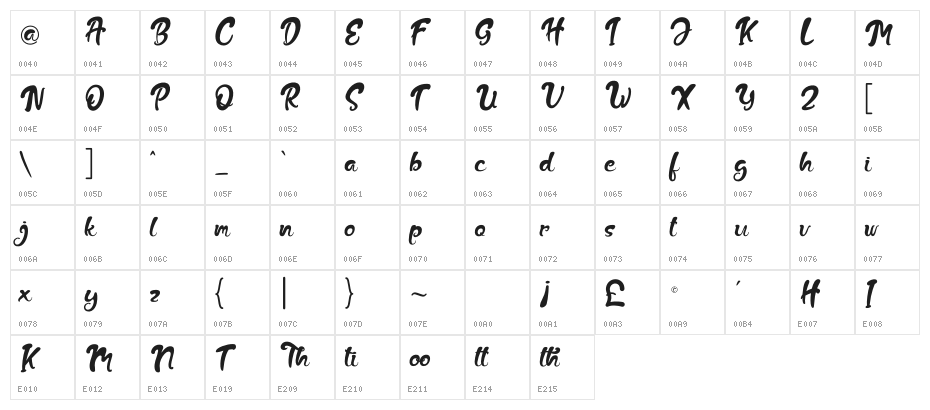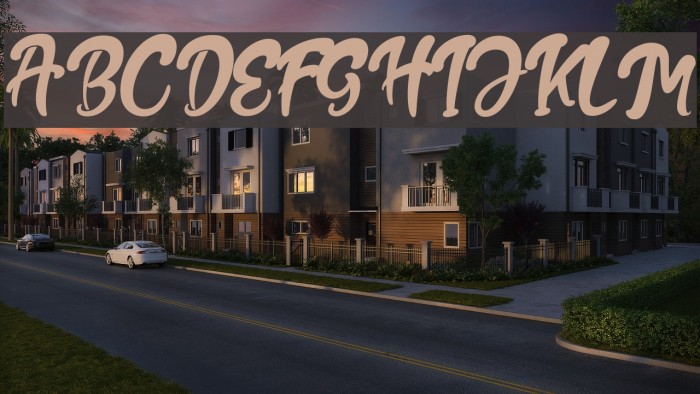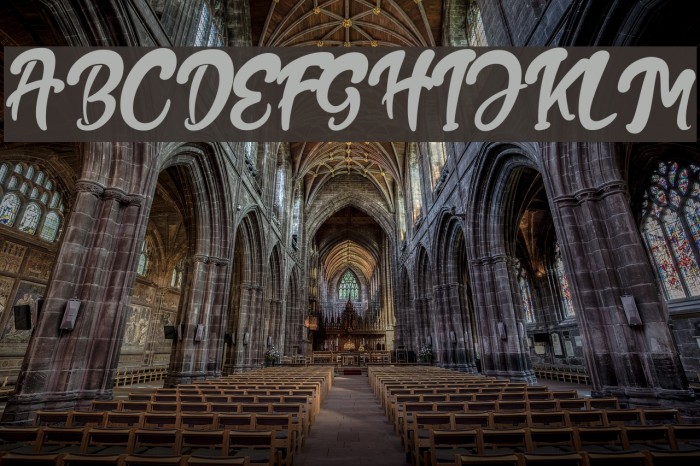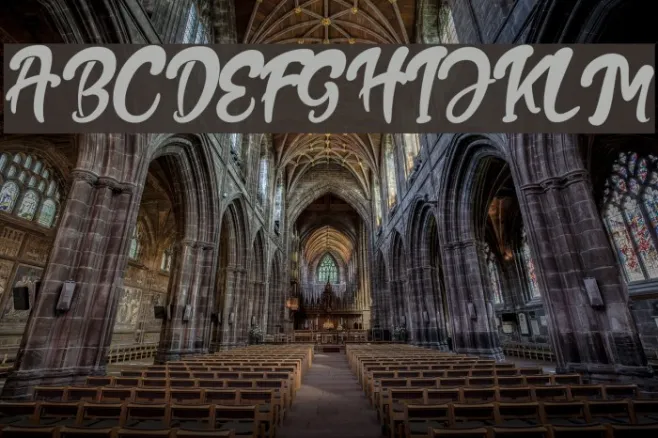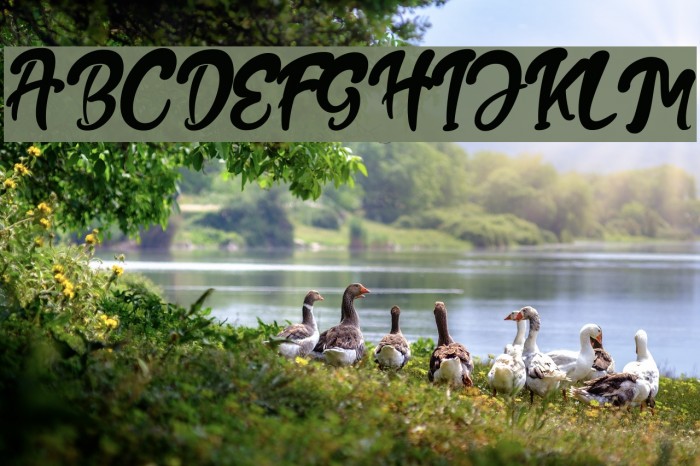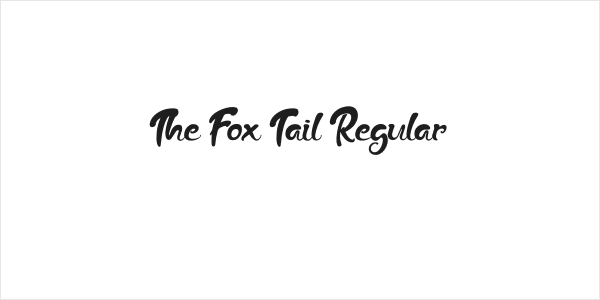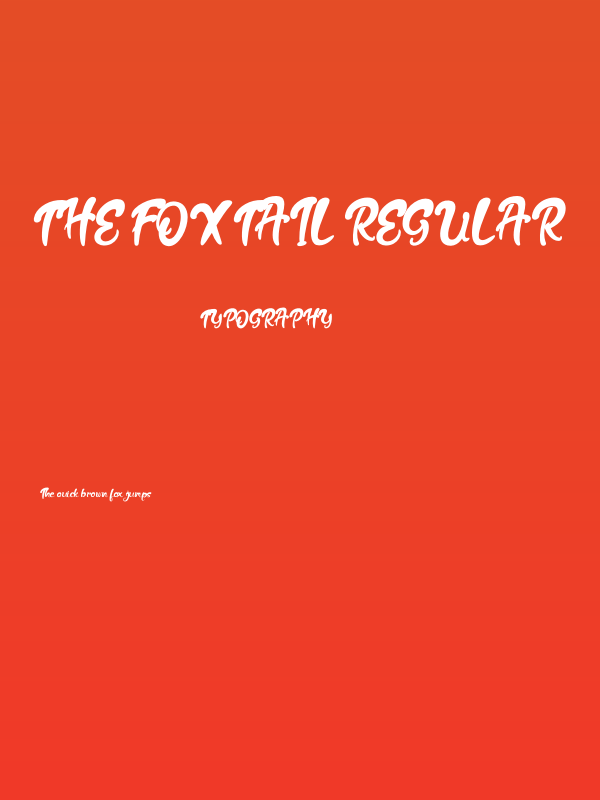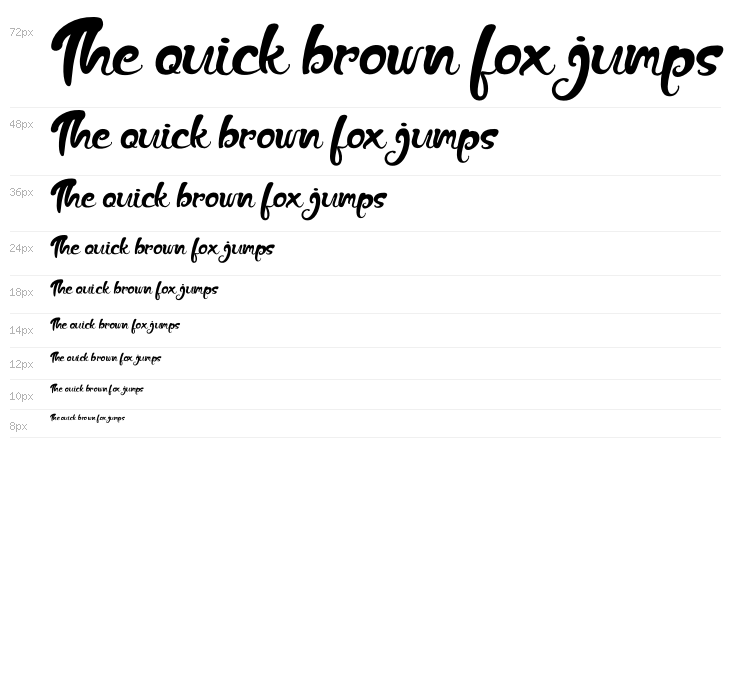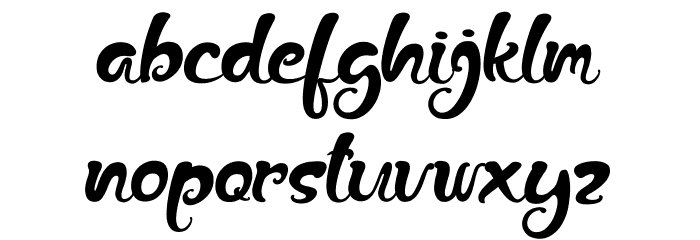
The Fox Tail Regular Font
The Fox Tail Regular Description
This font features a playful and whimsical script style, characterized by its flowing curves and elegant loops. The uppercase letters are bold and dynamic, with a slight slant that adds a sense of movement. The lowercase letters maintain a consistent style, with smooth transitions and rounded edges that enhance readability. The font's unique flair is evident in its decorative elements, such as the distinctive tails and swashes that give it a lively personality. The overall design is both artistic and functional, making it suitable for a variety of creative applications.